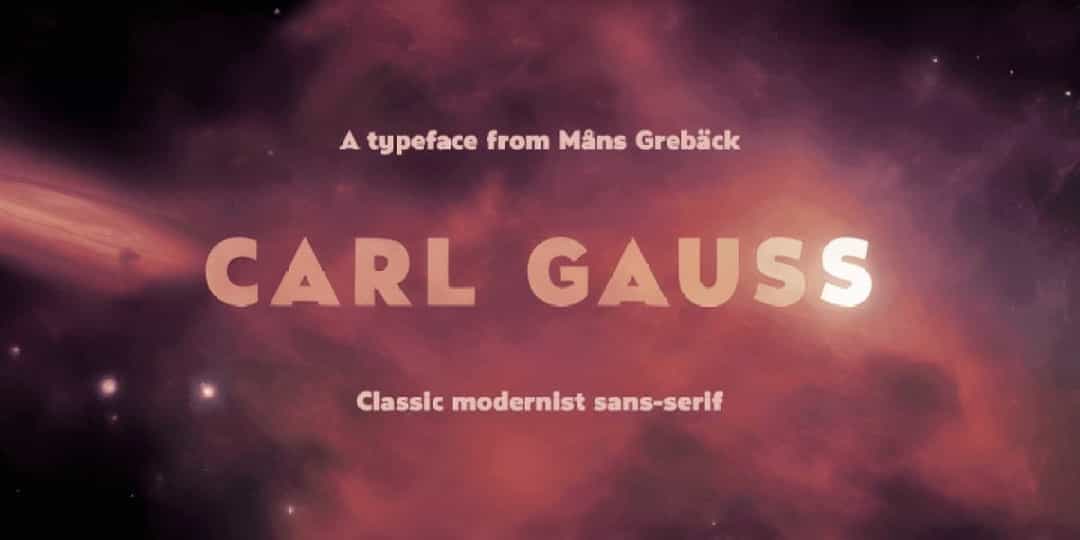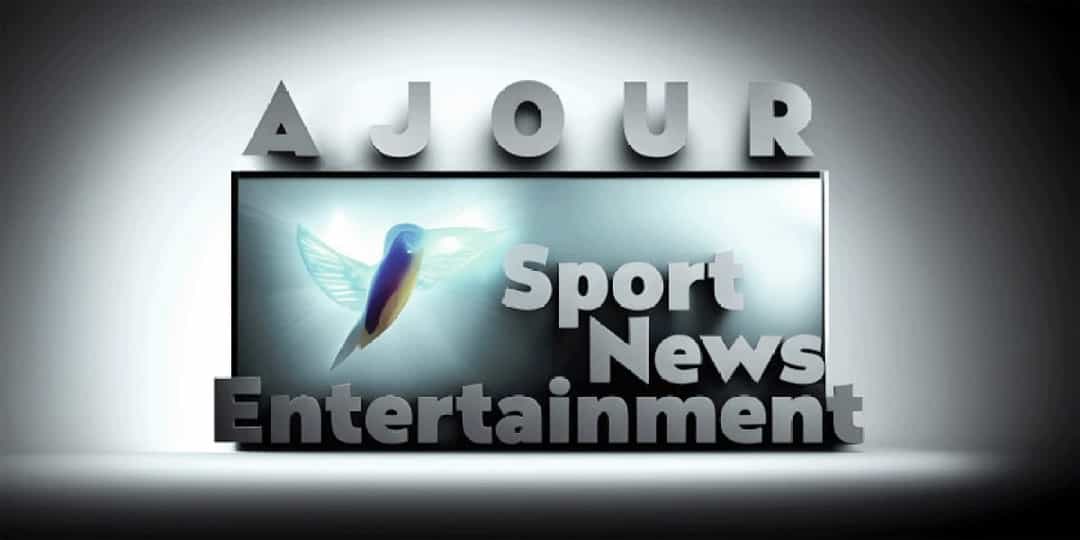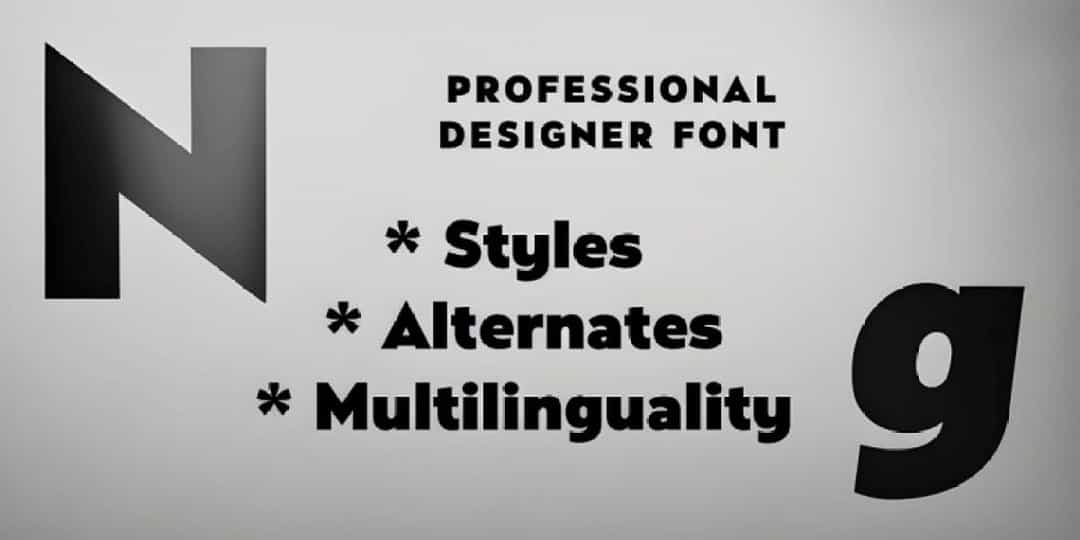
Carl Gauss is a contemporary sans serif font which combines geometric precision with elegant neoclassic designs for an eye-catching modern aesthetic. The sleek lines and stylish appearance make Carl Gauss perfect for branding projects, logotype designs and other contemporary projects that require sharp modern looks.